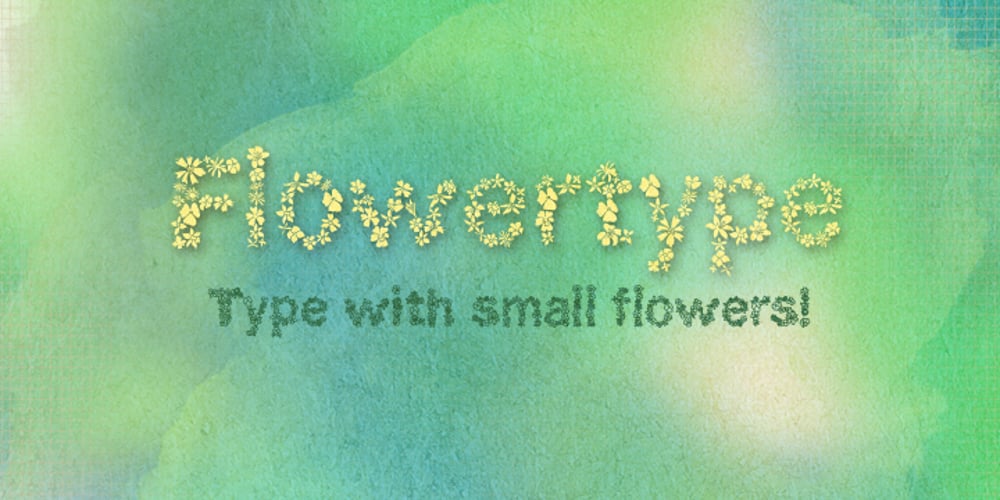
Flowertype
Flowertype font
Flowertype Font Family was designed by Natsuko Hayashida and published by Okaycat. Flowertype contains 2 styles and family package options. Want your type in flowers? With Flowertype all letters, numbers & symbols are made of flowers. Combine flower font styles for many cool possibilities. Flowertype is an extended font, containing West European diacritics & ligatures, making it suitable for multilingual environments & publications.